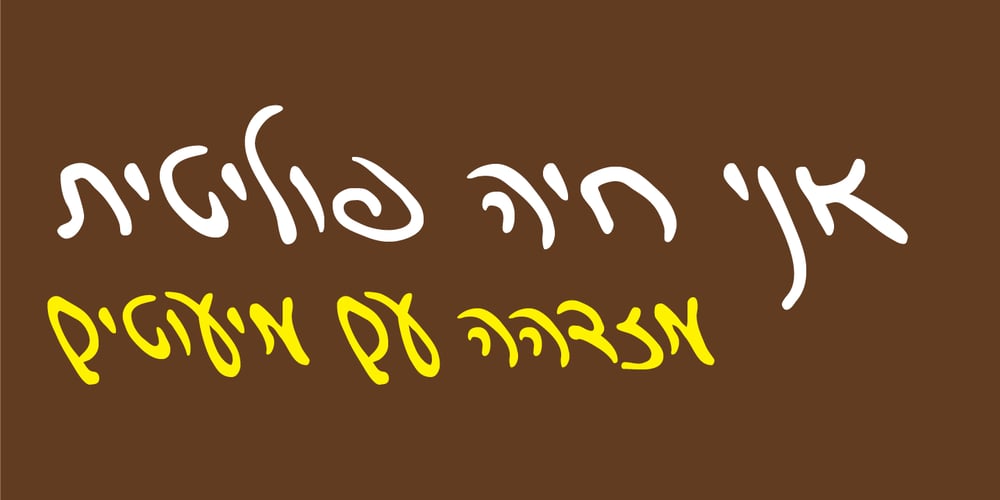
Elamar MF
Elamar MF font
Elamar MF Font Family was designed by Elamar Yarden and published by Masterfont. Elamar MF contains 1 styles and family package options. This font is a vivid choice when you want to effortlessly make your designs stand out with a remarkable clearly crafted and dynamic handwriting.